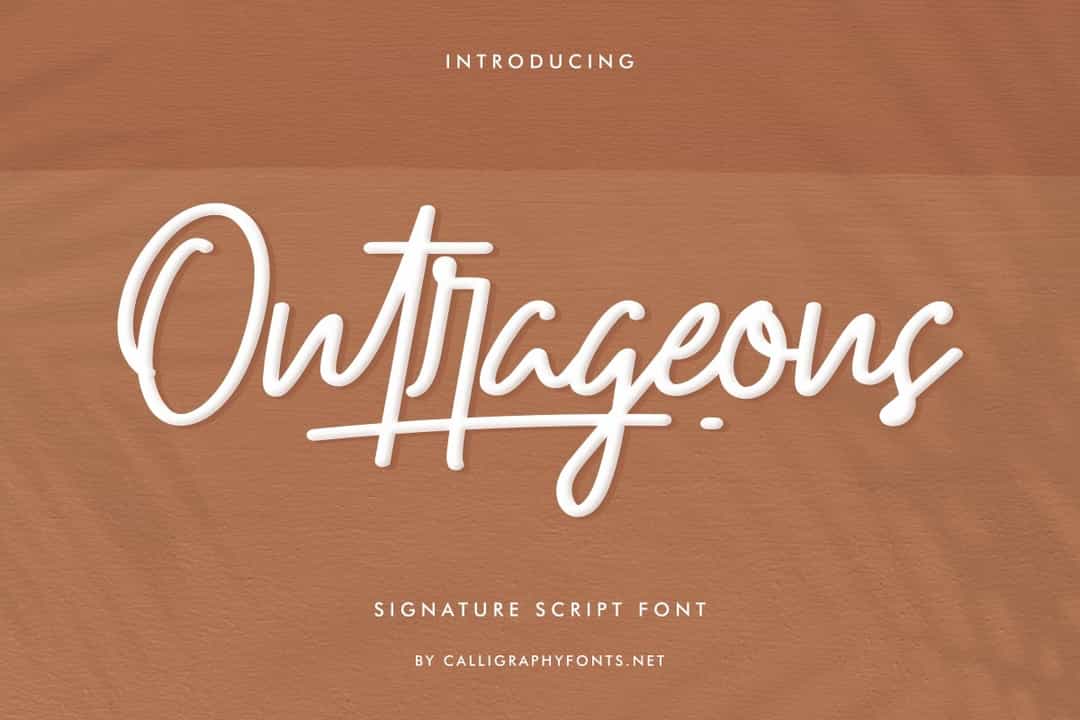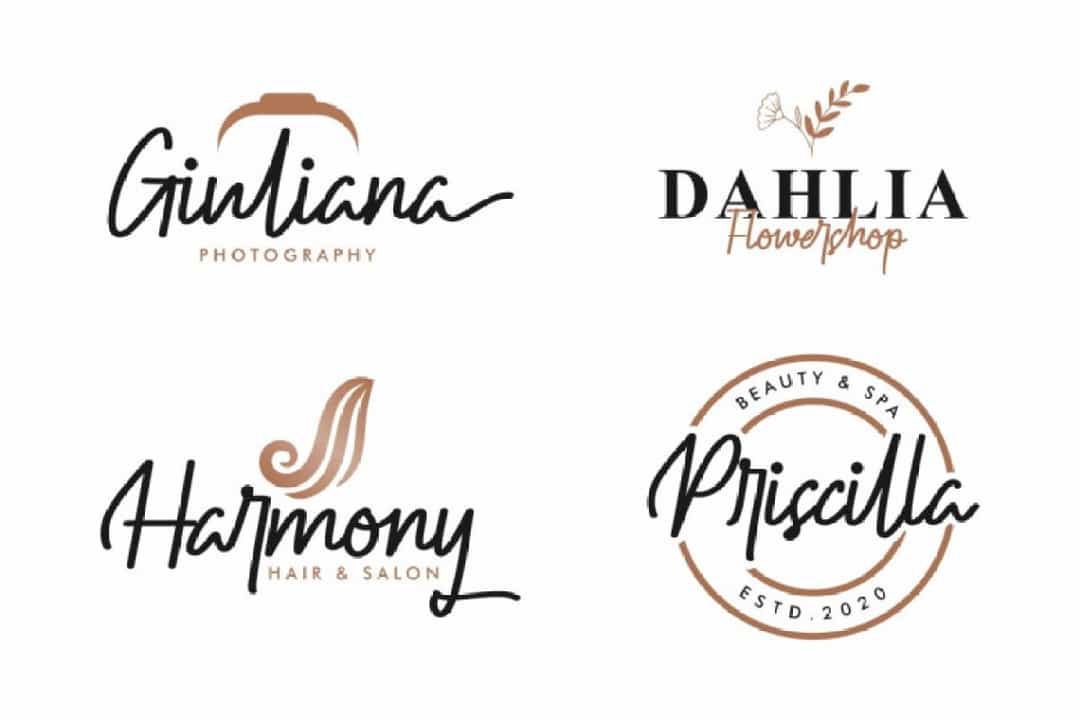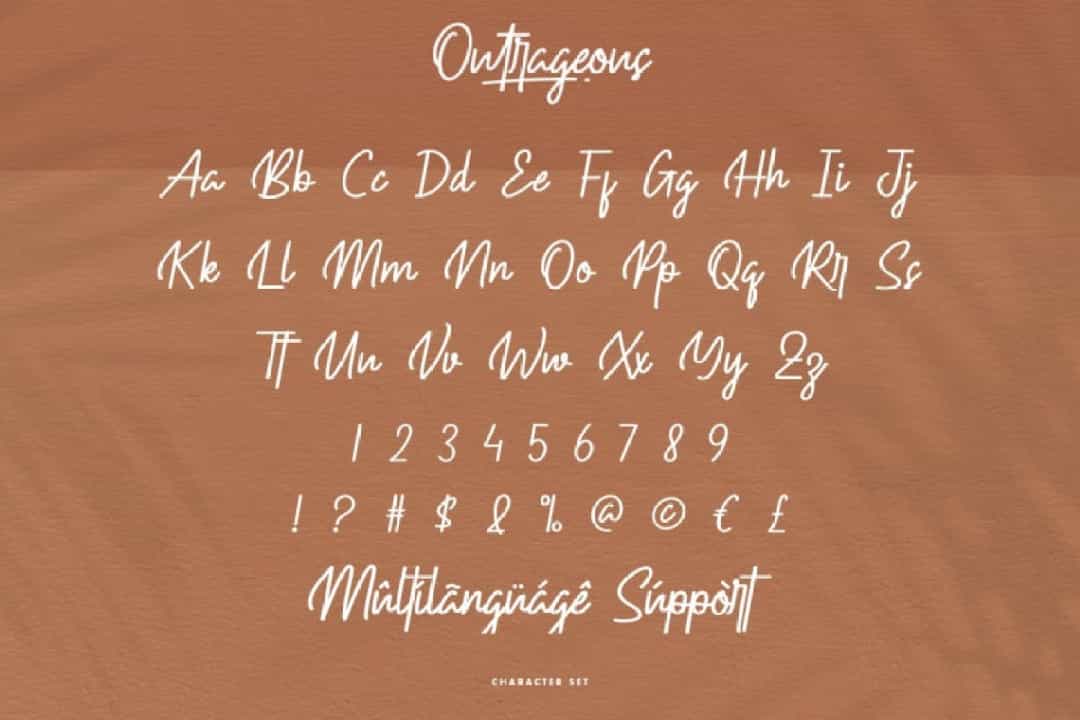
Outrageous is a classic script font and has casual, vintage elegant, luxurious handwriting, and easy writing appearance. You will also notice its smooth strokes and natural brush strokes and sharp corners which make it ideal for logos, apparel quotes, product packaging or any other design that requires strong typography. It is perfect to use as a font.